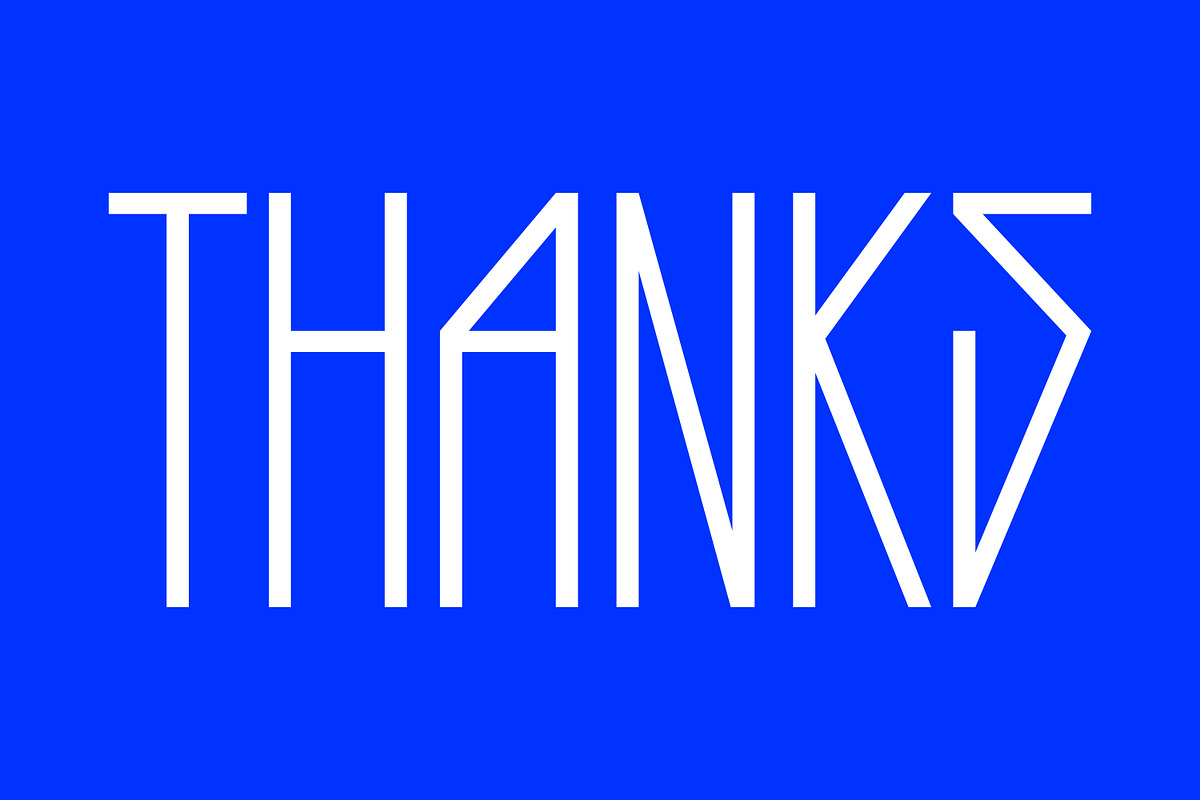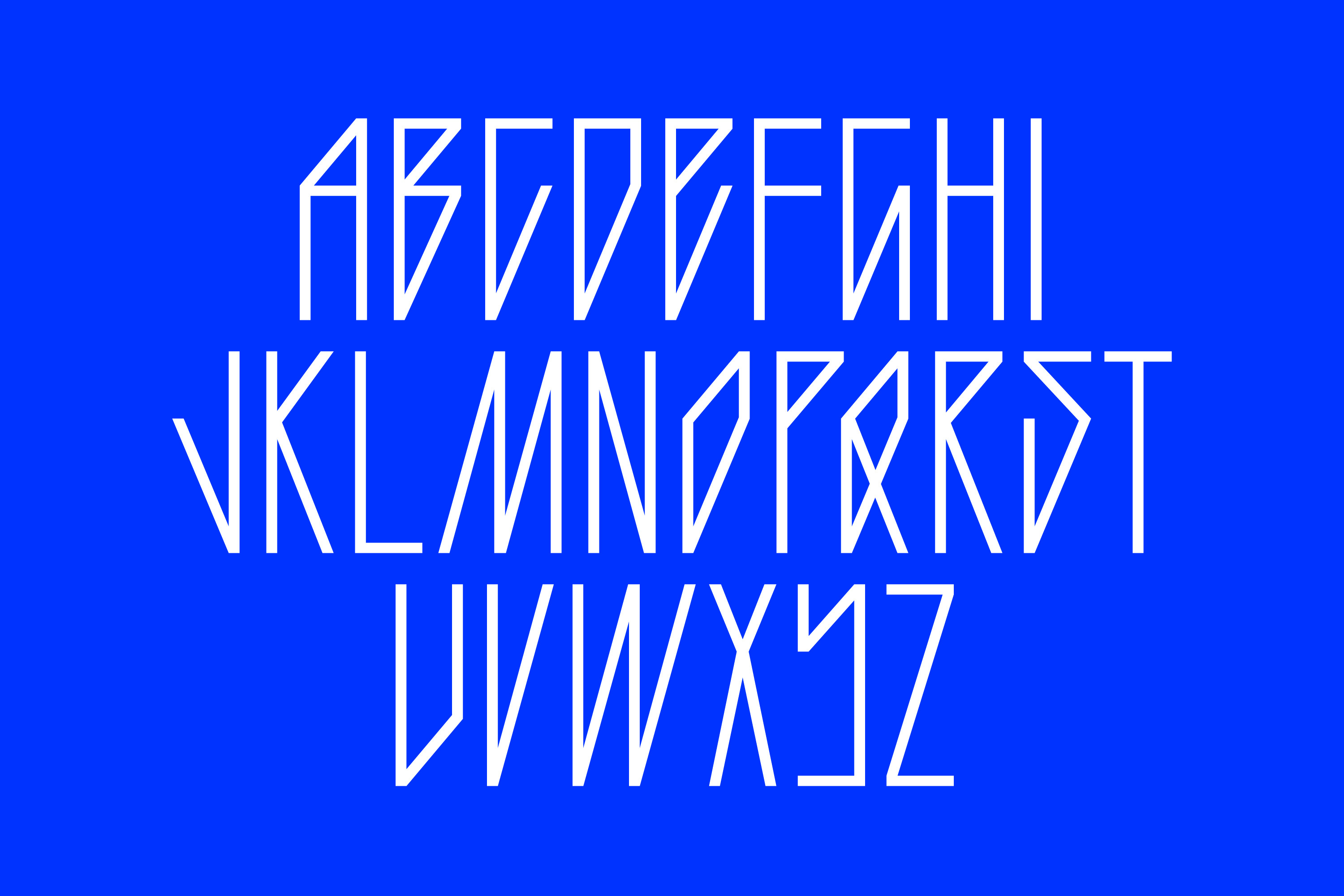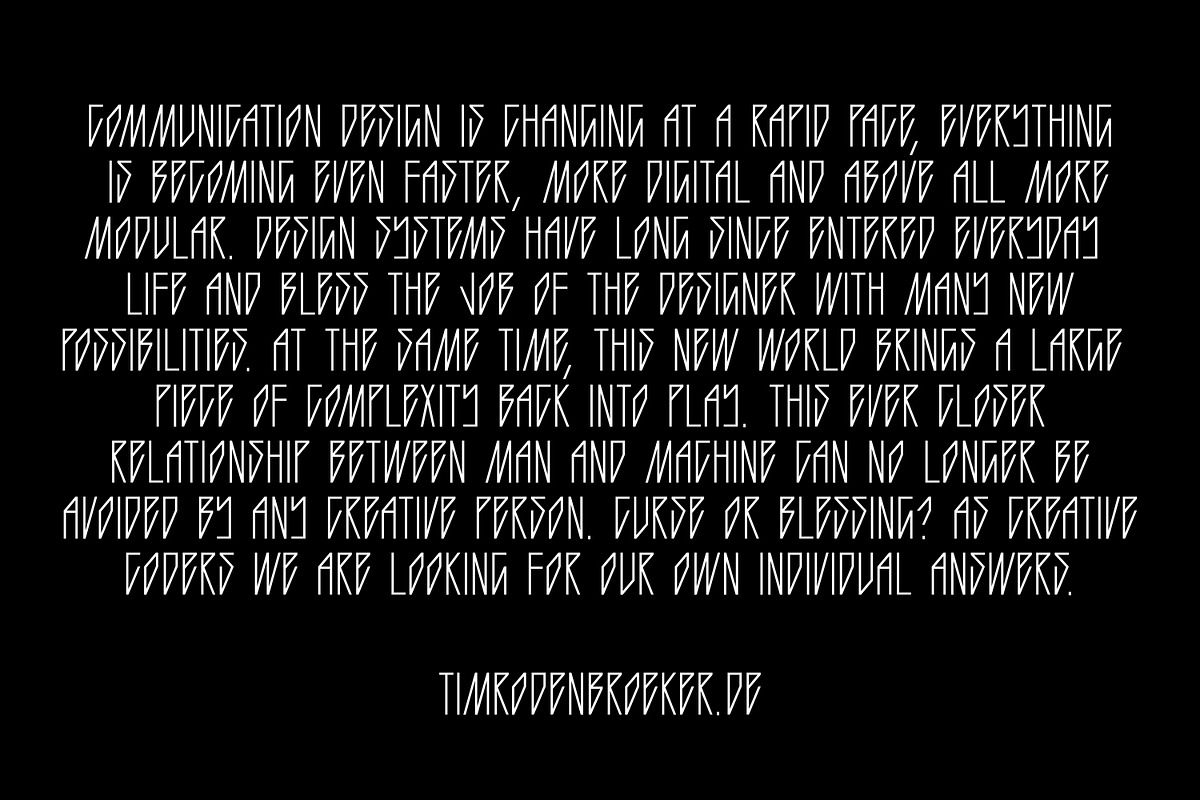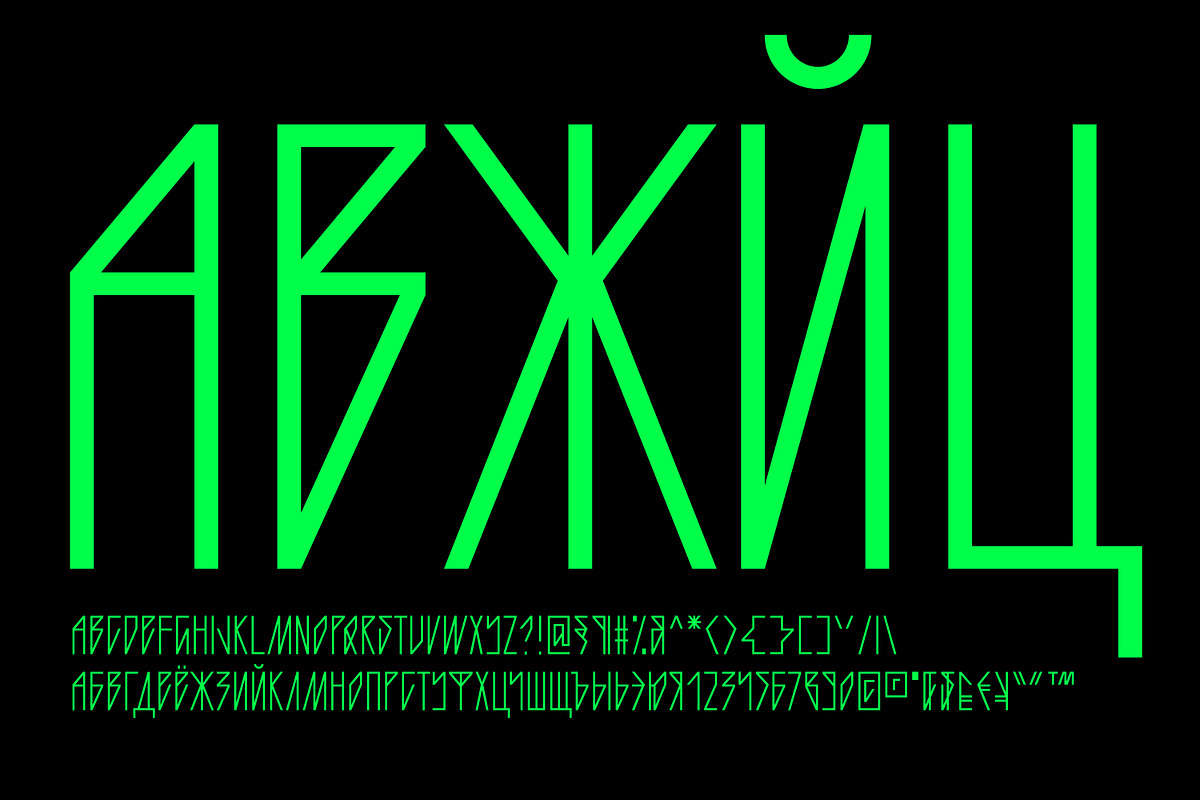
Beier Third
Beier Third is a dark fractal grid-based typeface with gothic mystery vibes.
- UNICASE
- latin (basic + Western + Eastern + Central Europe)
- cyrillic